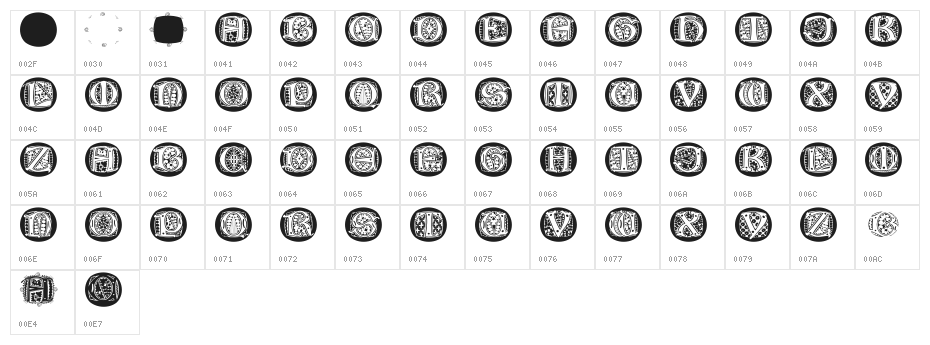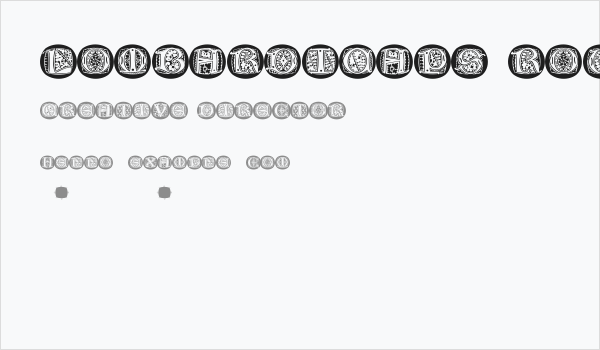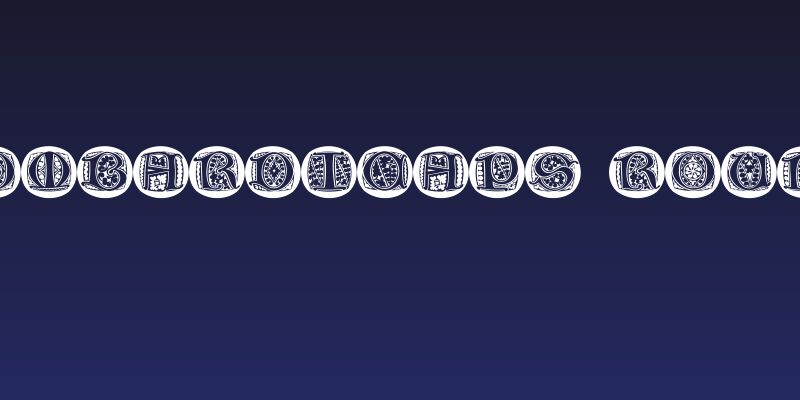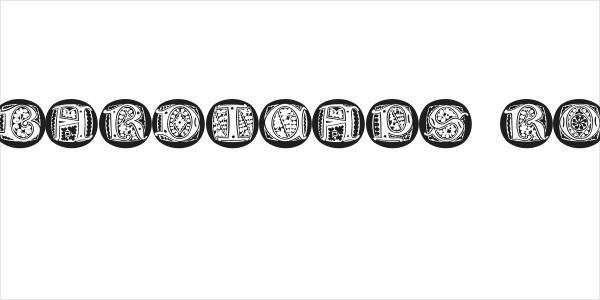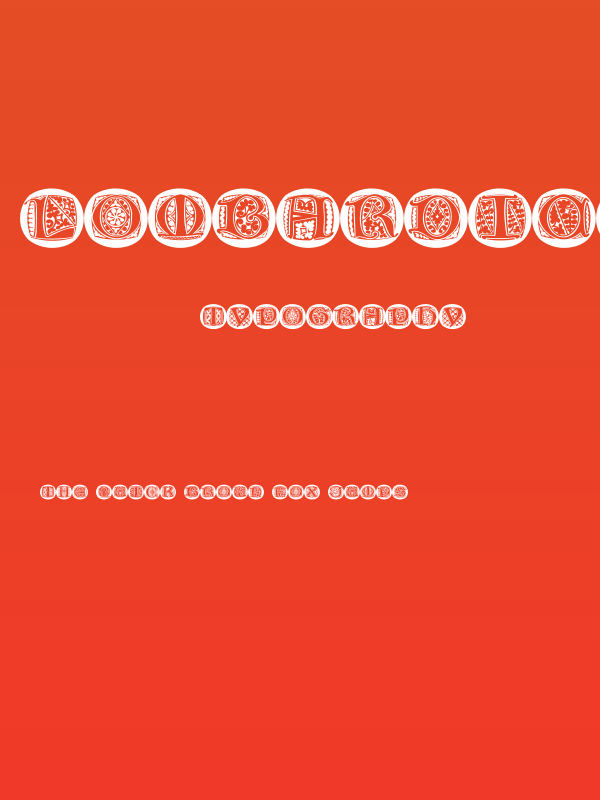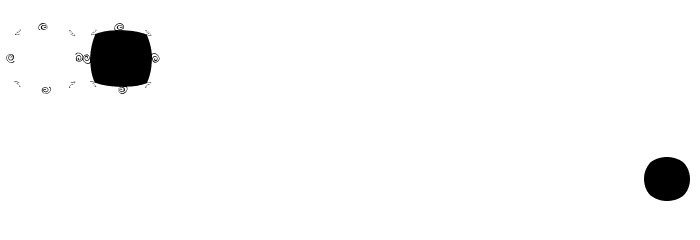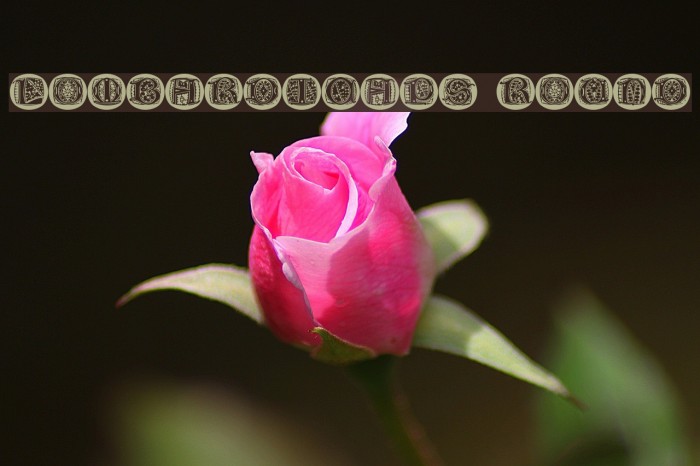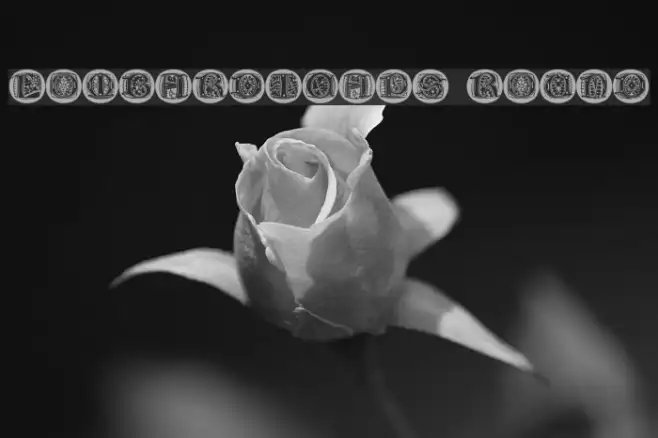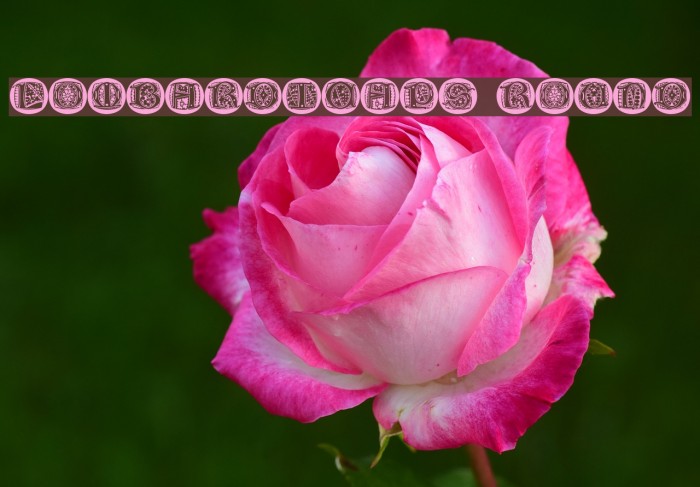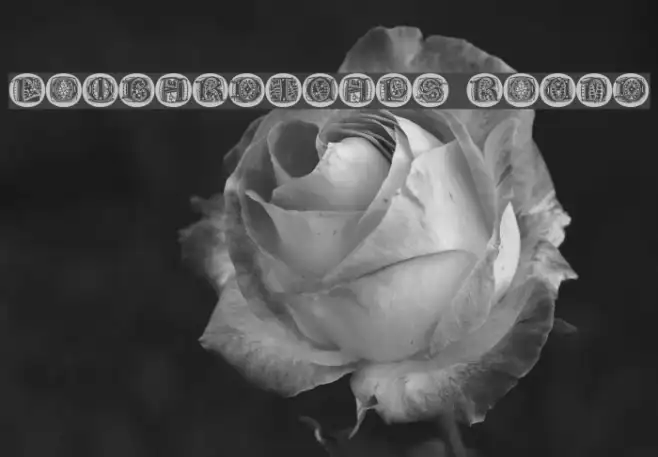
LombardiCaps Round Font
LombardiCaps Round Description
This font features a highly decorative and intricate design, with each character enclosed in a circular frame. The letters are adorned with elaborate patterns and motifs, giving them a unique and ornate appearance. The style is reminiscent of medieval or renaissance art, with a strong emphasis on decorative elements. Each character is distinct, with varying patterns that include swirls, lines, and geometric shapes, creating a visually rich and complex aesthetic. The font is bold and eye-catching, making it suitable for projects that require a strong visual impact.
| Proposed Projects | Ideal for use in vintage-themed designs, invitations, posters, and any project requiring a historical or artistic flair. |